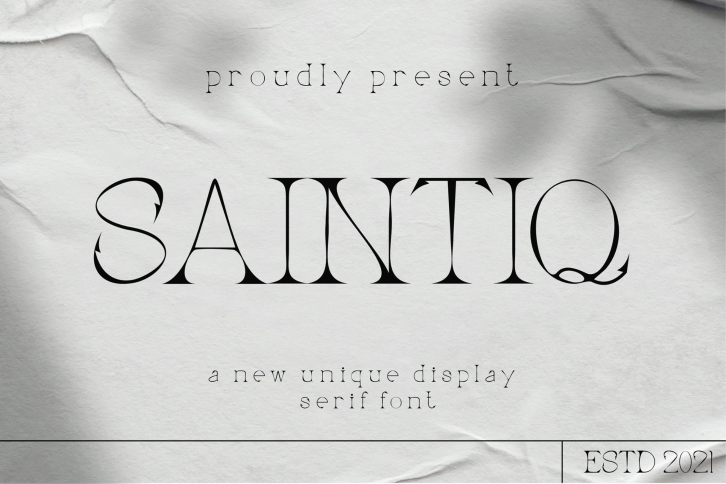
Saintiq is a beautiful font that was designed by ZainStudios. It's a great choice for designers and creatives who need such a font. It was released on July 28, 2021 and the file size is 18.29 MB. Saintiq may give a more youthful, expressive and casual look to your project. It is a very beautiful, refined, elegant, and high-quality font.